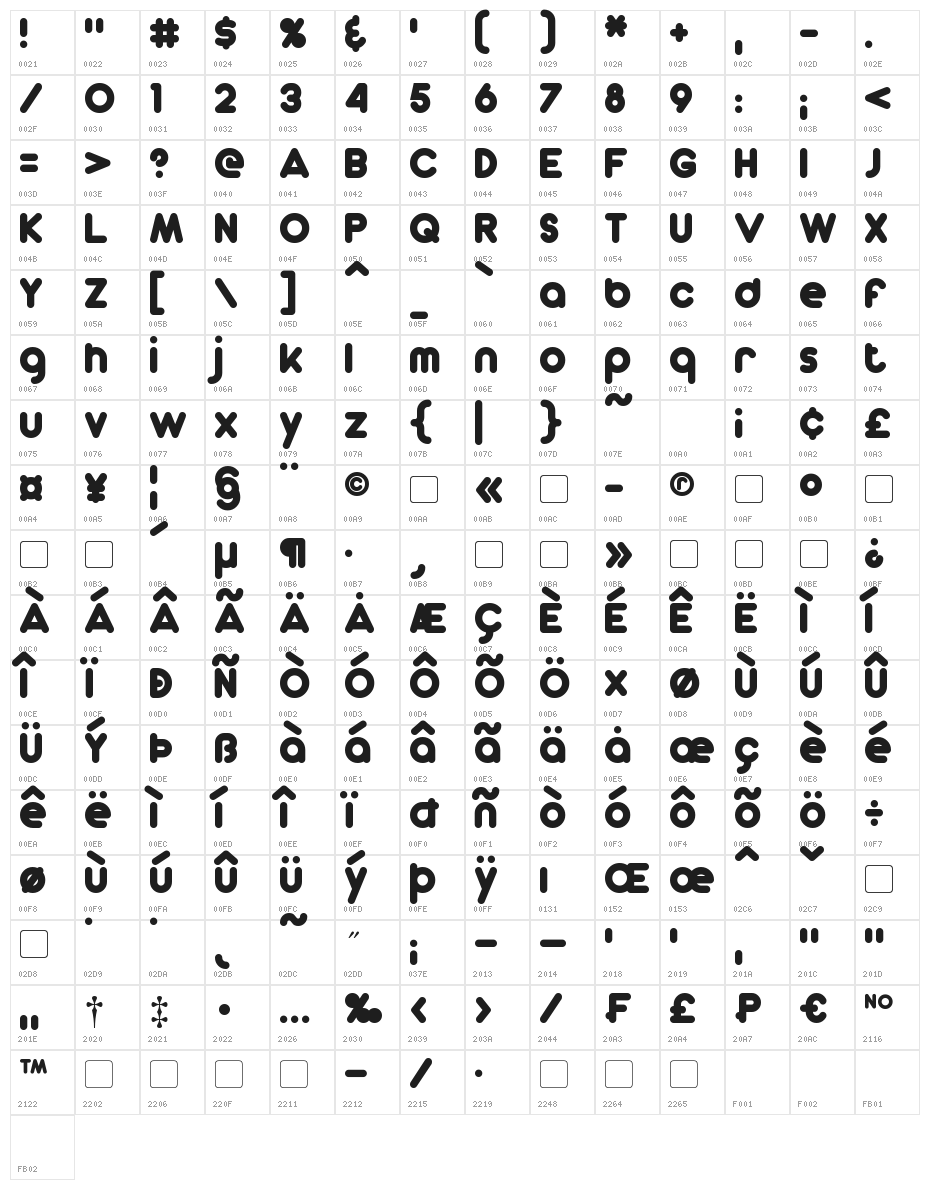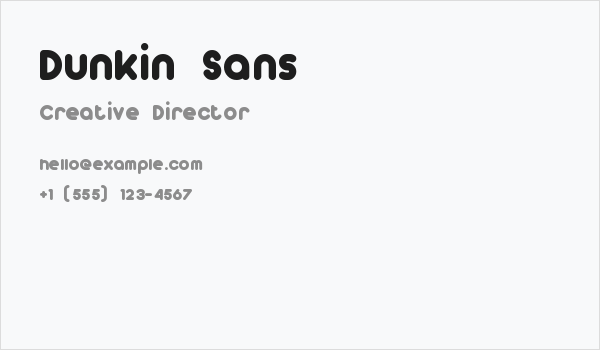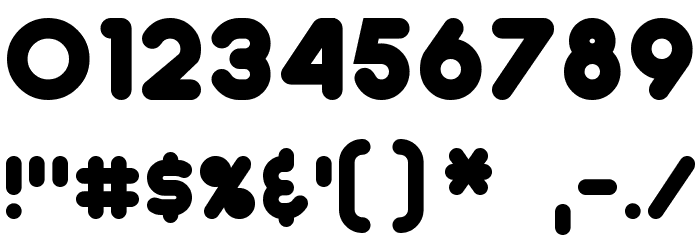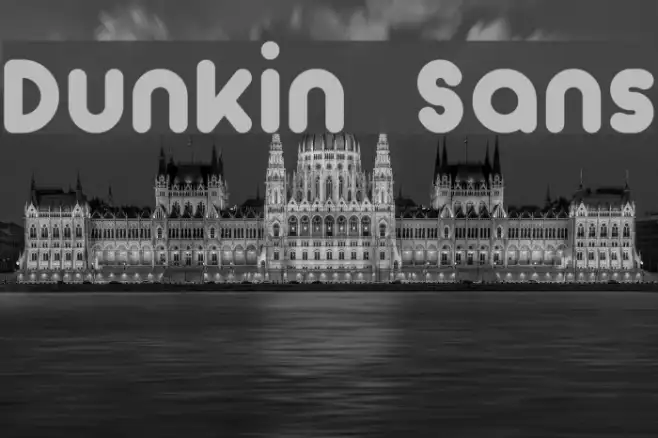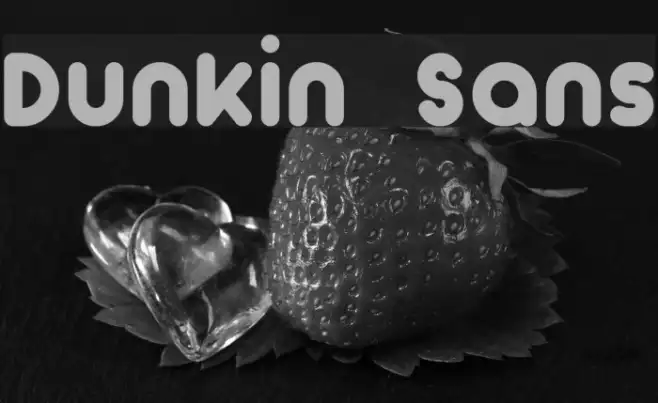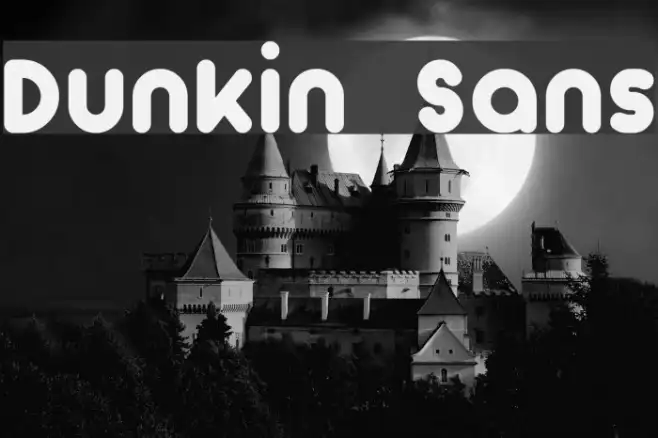
Dunkin Sans Font
Dunkin Sans Description
This font features a bold, rounded sans-serif style with a playful and modern aesthetic. The characters are uniformly thick, providing a consistent and friendly appearance. The rounded edges and smooth curves give it a soft and approachable feel, making it ideal for casual and fun design projects. The uniformity in stroke width across all characters ensures a cohesive look, while the rounded terminals add a touch of warmth and friendliness. This font is versatile, suitable for both digital and print media, and can effectively capture attention with its bold presence.
| Use Case | Headlines, Logos, Branding |
| Proposed Projects | Ideal for branding, packaging, children's books, and playful advertising campaigns. |